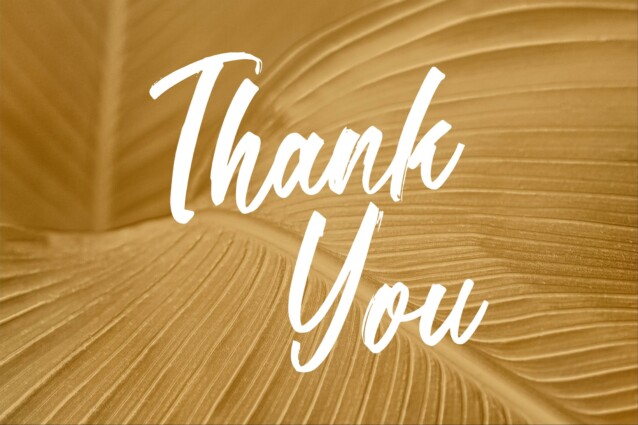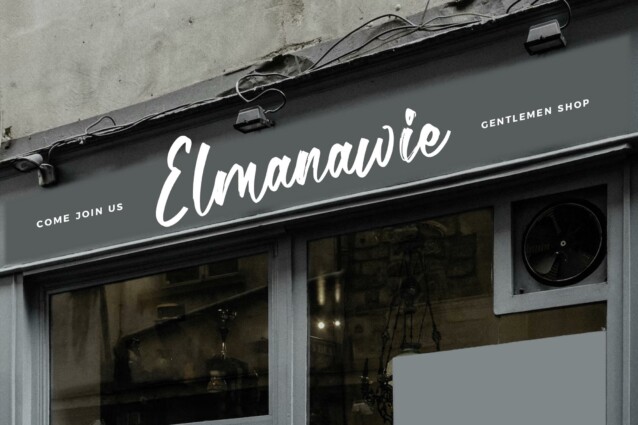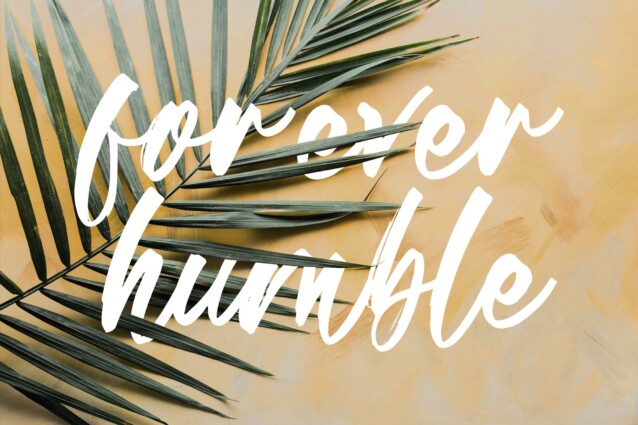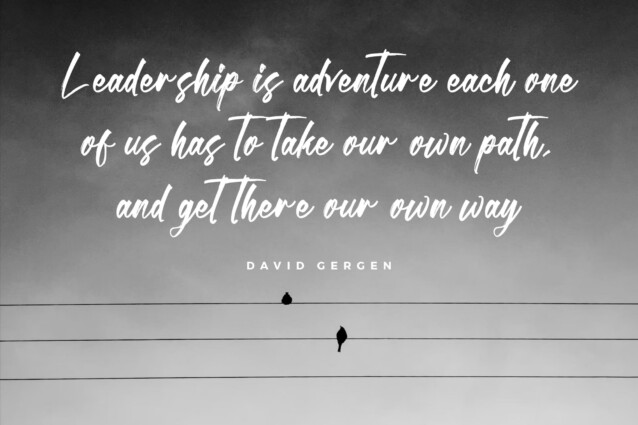
Rinebold Gutisky Font is a handbrush script font, suitable for any projects such as: logos, branding projects, homeware designs, product packaging, mugs, quotes, posters, shopping bags, t-shirts, book covers, name card, invitation cards, greeting cards, label, photography, watermark, special events, and all your other lovely projects that need a beautiful script taste.